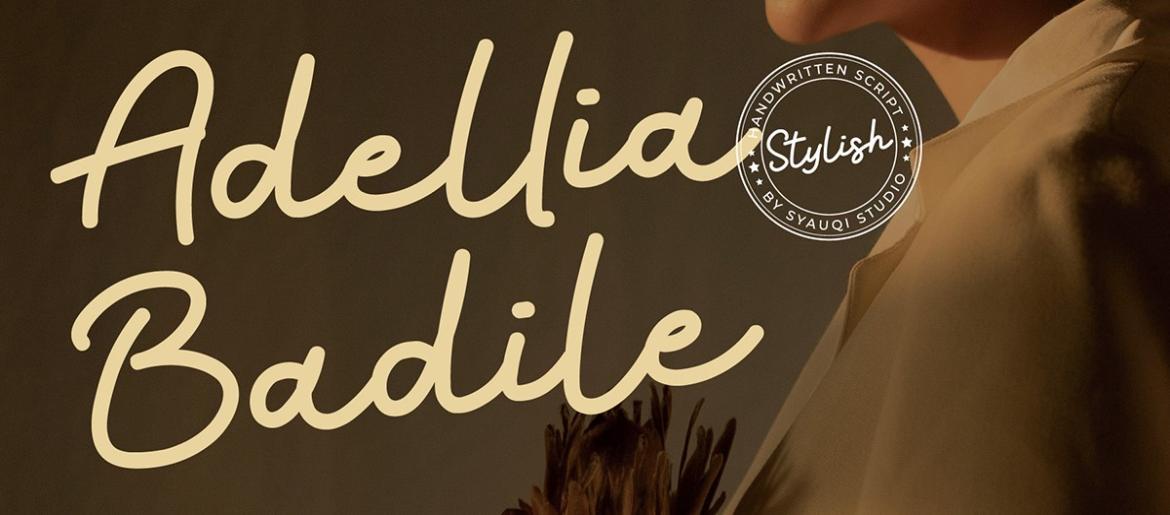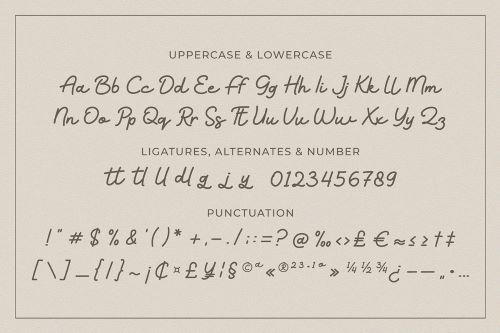
Adellia Badile Font
Adellia Badile font
Adellia Badile is an elegant handwritten script font that adds a touch of sophistication to any design project. Featuring smooth, flowing curves and a naturally stylish look, this premium script typeface is ideal for creatives who want to elevate their visuals. Perfect for fashion branding, beauty and cosmetic promotions, luxury perfume packaging, jewelry designs, and wedding invitations, Adellia Badile enhances your text with a refined, classy, and personalized feel.
➤ Font Name:  Adellia Badile
➤ Designer: Syauqi Studio
➤ Style: Handwritten